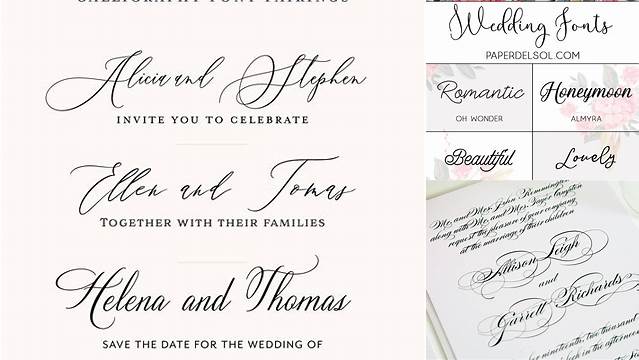
Elegant Cursive Fonts For Wedding Invitations In Word
Choosing the right font for your wedding invitations is crucial, guys! It sets the tone for your big day and gives your guests a sneak peek into your wedding's style. When it comes to wedding invitations, cursive fonts are a classic choice, adding a touch of elegance and romance. And if you're using Microsoft Word to design your invites, you're in luck! There are tons of beautiful cursive fonts available that can make your invitations look absolutely stunning. Let's dive into the world of best cursive fonts for wedding invitations in Word and explore how to make your invites truly special.
1. Understanding the Importance of Font Choice in Wedding Invitations
The font you choose for your wedding invitations plays a significant role in conveying your wedding's theme and personality. A well-chosen font can evoke feelings of romance, sophistication, or whimsy, setting the stage for your celebration. Consider the overall style you're aiming for – whether it's a classic and formal affair, a rustic and bohemian gathering, or a modern and minimalist celebration. The font should complement your chosen aesthetic, and remember, it's not just about aesthetics; readability is key! Your guests need to be able to easily read the important details, like the date, time, and location, so balance elegance with clarity.
2. The Allure of Cursive Fonts for Wedding Invitations
Cursive fonts have a timeless appeal, bringing a sense of handwritten elegance to your wedding invitations. They mimic the flowing strokes of calligraphy, adding a personal and romantic touch. The graceful curves and delicate lines of cursive fonts can make your invitations feel more special and sophisticated. But not all cursive fonts are created equal! Some are more formal and traditional, while others have a modern and playful vibe. The key is to find a cursive font that perfectly matches the style of your wedding. Think about the feeling you want to create – is it classic romance, vintage charm, or contemporary chic? The right cursive font can help you achieve just that.
3. Top 5 Classic Cursive Fonts for a Timeless Wedding
For a timeless wedding invitation, you can't go wrong with classic cursive fonts. These fonts exude elegance and sophistication, perfect for a formal affair. Here are five top contenders:
- Script MT Bold: A widely used font, Script MT Bold offers a neat and legible cursive style. Its boldness gives it a strong presence on the page, ensuring readability while maintaining an elegant feel. It's a great choice for couples who want a traditional look with a touch of modernity. The clean lines and consistent strokes make it easy to read, even in smaller sizes. This font works well for the main invitation text as well as for headings and subheadings. Plus, it's a standard font in Word, so you don't have to worry about downloading anything extra.
- Edwardian Script ITC: This font is the epitome of classic elegance. Its flowing, ornate letterforms evoke a sense of old-world charm and sophistication. It's ideal for formal weddings with a vintage or traditional theme. The intricate details of Edwardian Script ITC add a touch of grandeur to your invitations, making them feel like a work of art. However, because of its elaborate style, it's best used for names and headings, and paired with a simpler font for the body text to ensure readability.
- Kunstler Script: Kunstler Script strikes a balance between elegance and readability. Its graceful curves and refined letterforms make it a beautiful choice for wedding invitations, while its clear strokes ensure that the text remains legible. It has a slightly more modern feel than Edwardian Script ITC, making it a versatile option for various wedding styles. Kunstler Script works well for both the main invitation text and headings, adding a touch of sophistication without sacrificing clarity. Its balanced design makes it a reliable choice for couples who want a font that is both beautiful and practical.
- Freebooter Script: For those seeking a touch of rustic charm combined with elegance, Freebooter Script is an excellent pick. Its flowing, slightly irregular strokes give it a handwritten feel, adding a personal touch to your invitations. This font is perfect for weddings with a vintage or bohemian theme. Freebooter Script has a unique character that sets it apart from more formal cursive fonts. It's a great choice for couples who want their invitations to feel warm and inviting. Consider using it for the main invitation text and pairing it with a simple sans-serif font for the details like date and time.
- Great Vibes: Great Vibes offers a modern twist on classic cursive. Its clean lines and elegant loops make it a stylish choice for contemporary weddings. It's both sophisticated and easy to read, making it a versatile option for various invitation designs. The balanced letterforms of Great Vibes make it ideal for both headings and body text, providing a consistent and elegant look throughout your invitations. It's a great choice for couples who want a cursive font that feels fresh and modern.
4. Modern Cursive Fonts for a Chic Wedding Invitation
If you're planning a chic, modern wedding, you'll want a cursive font that reflects your contemporary style. These fonts offer a fresh take on classic cursive, with cleaner lines and a more minimalist aesthetic. Here are some modern cursive fonts to consider:
- Honey Script: Honey Script offers a playful and elegant vibe, making it a perfect choice for modern wedding invitations. Its flowing lines and unique character make it stand out while remaining easy to read. This font adds a touch of whimsy to your invitations, ideal for couples who want a contemporary yet romantic feel. Honey Script works well for headings and can also be used for the main invitation text when paired with a simple sans-serif font for details. Its versatility makes it a favorite among designers.